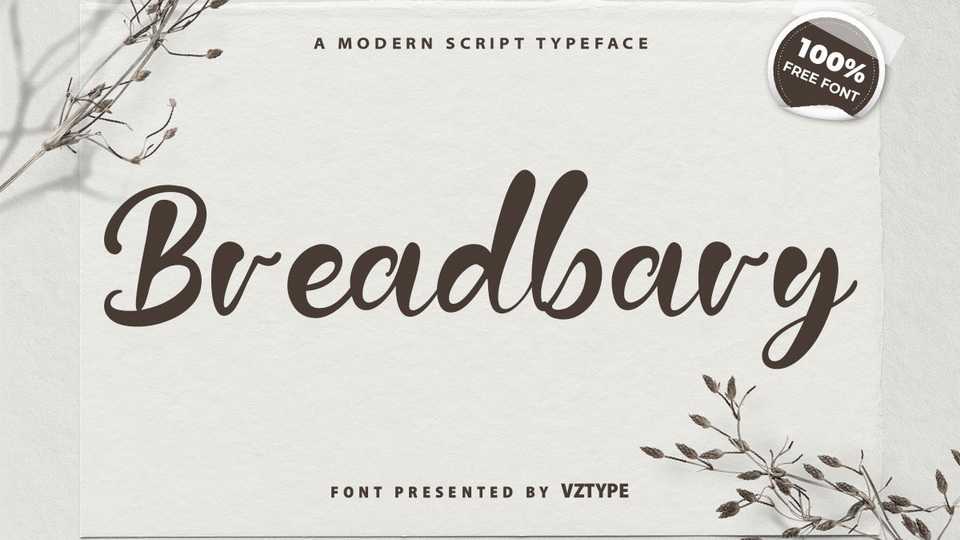
Download Breadbary font, a hand painted typeface with a heavily-laden inky pointed brush. Breadbary font is great for branding and packaging, especially the design that needs the natural writing feel.
Designer: VZTYPE Studio